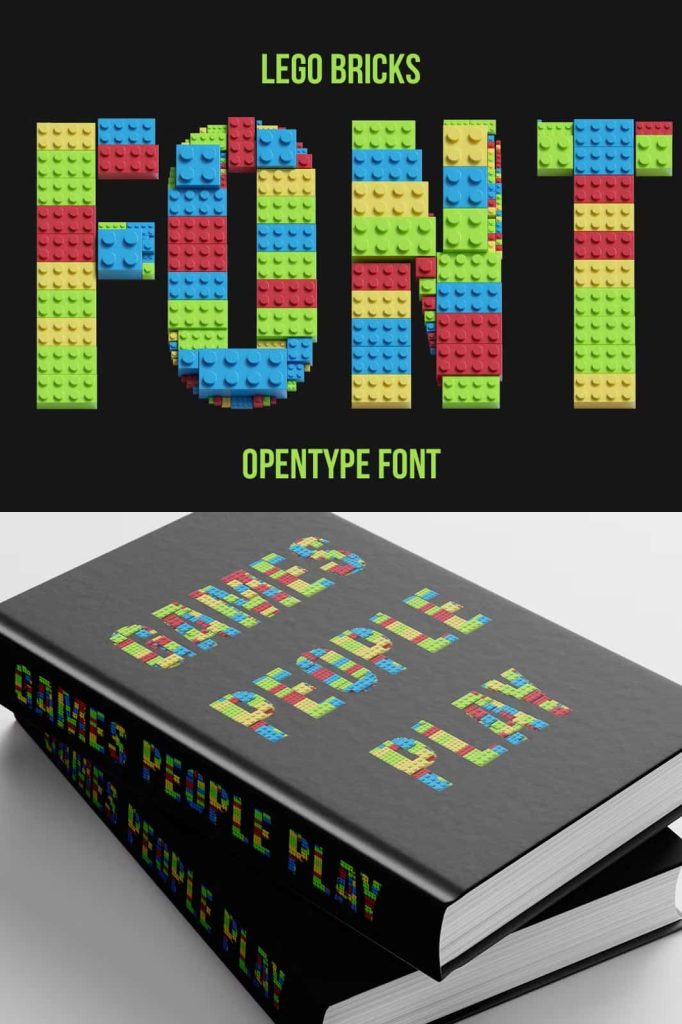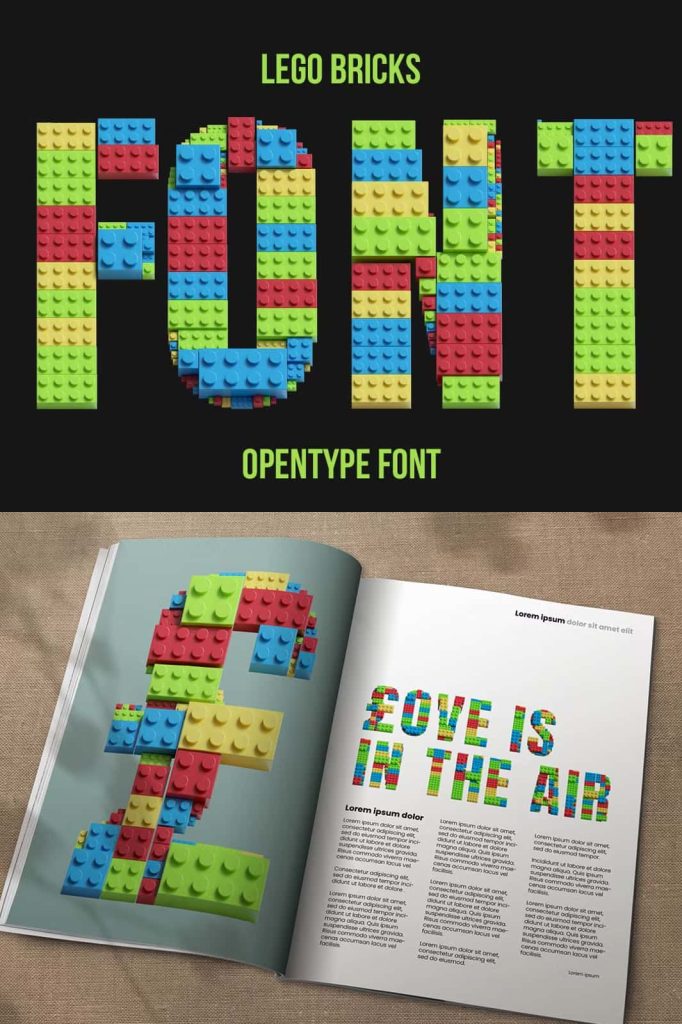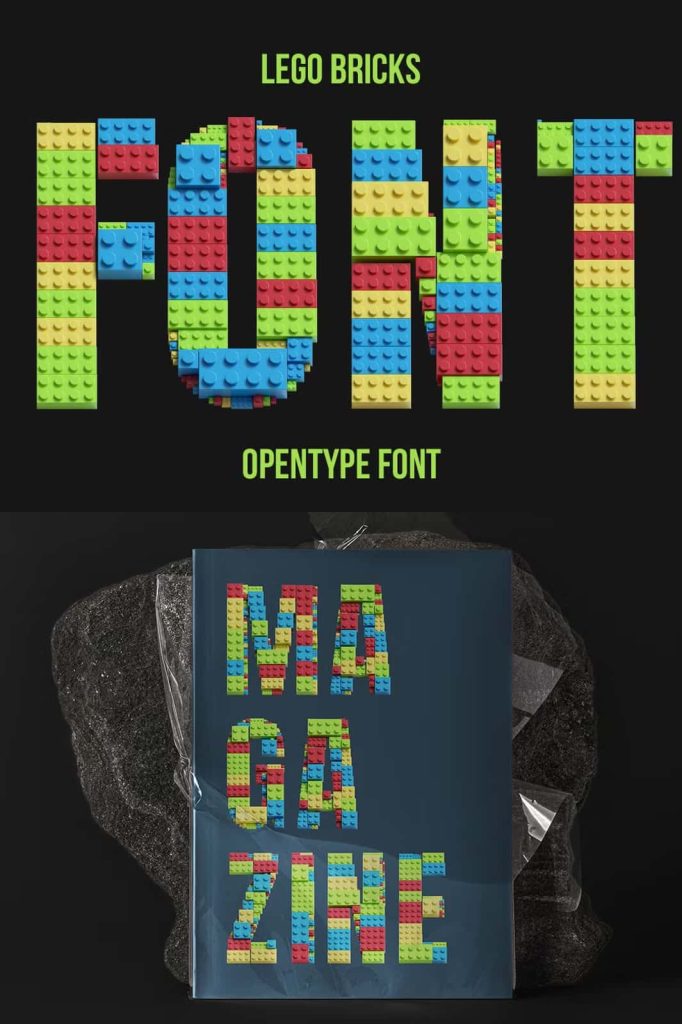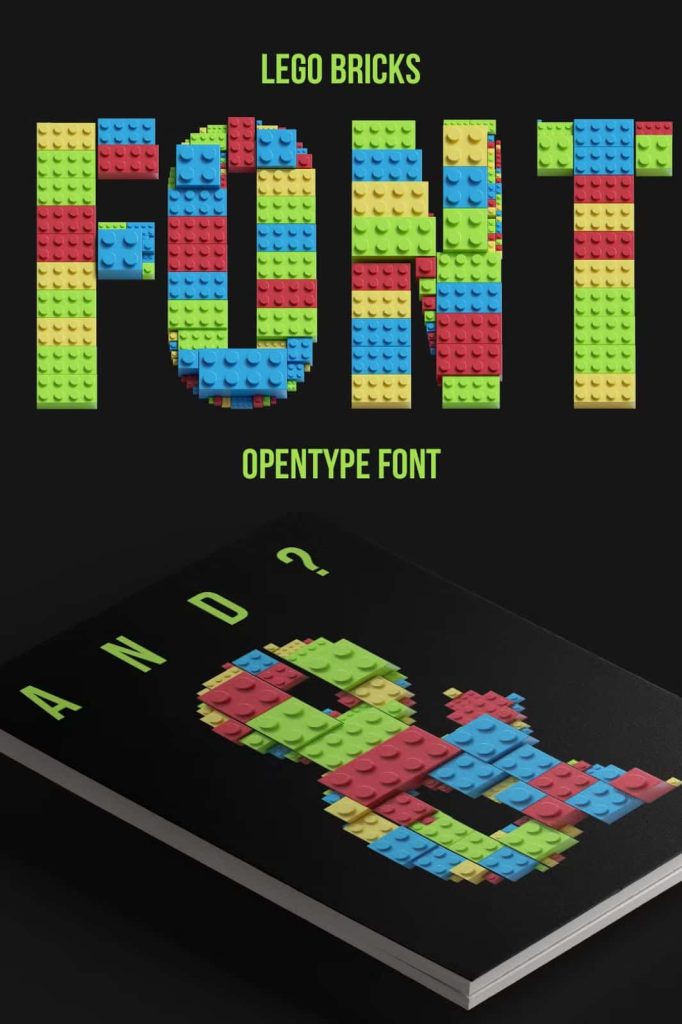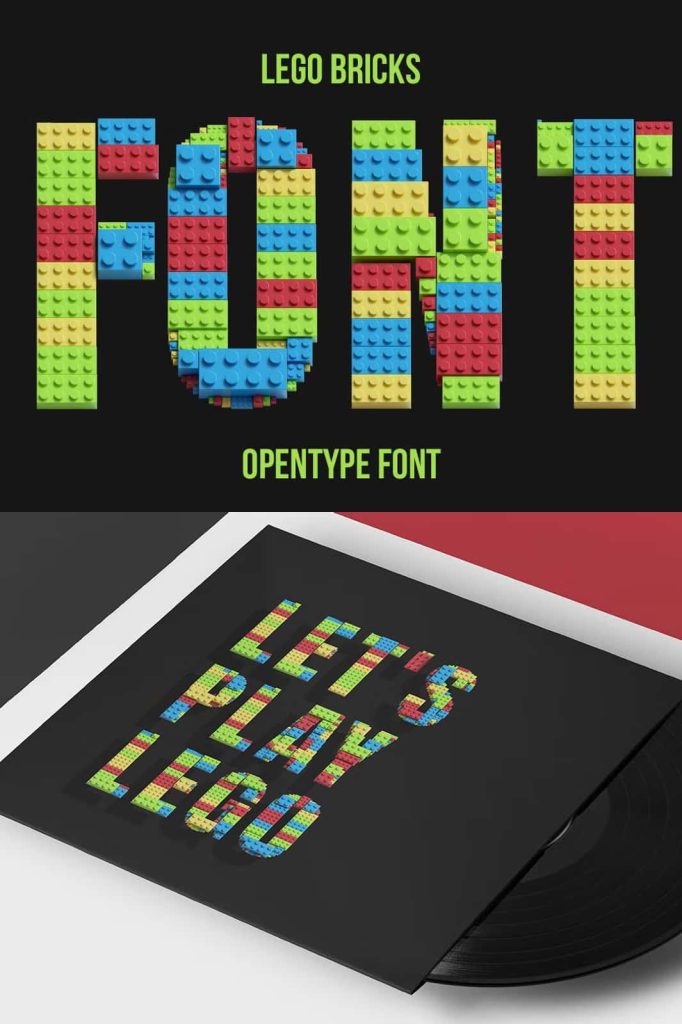
Lego Bricks SVG Font – High-Definition OpenType-SVG Typeface for Creative and Playful Design
Lego Bricks SVG Font is an exciting and high-definition OpenType-SVG typeface designed to bring strong visual impact and vibrant creative energy into any project. Built with realistic brick textures and dynamic 3D-style structure, this font replicates the iconic look and feel of physical building blocks. Every character is crafted with exceptional detail, making this font a powerful tool for designers who want to create bold, playful, and visually striking typography. Perfectly suited for digital and print applications, Lego Bricks SVG Font unlocks endless opportunities for imaginative design concepts.
This unique SVG font contains uppercase characters, numerals, and basic punctuation, all designed with precision and high-resolution detail. The approximate drawing height of each character is around 800 pixels, offering strong clarity and crisp rendering even at large display sizes. All available letters and glyphs featured in this font can be viewed in the preview, showcasing its expressive and versatile character set.
High-Definition OpenType-SVG Technology for Stunning Visual Quality
Lego Bricks SVG Font is built using advanced OpenType-SVG technology, creating a typography experience far beyond standard vector fonts. Each character contains rich color, texture, and shading that closely mimics real building bricks. This technology allows the font to maintain incredible detail without requiring manual graphic editing or additional effects.
With realistic dimension and visually engaging depth, this typeface transforms simple text into powerful design elements. It performs exceptionally well in high-resolution layouts, display headlines, signage, and promotional materials that demand visual excitement and creativity.
Complete Set of Characters for Flexible Creative Use
Lego Bricks SVG Font includes a full set of uppercase letters, numerals, and basic punctuation to cover essential typographic needs in both digital and printed formats. These elements make it perfect for building playful messages, educational designs, branding visuals, and thematic artwork for entertainment and events.
The structured block style encourages experimental layouts and layered composition, giving designers the freedom to explore new concepts that stand out instantly. Whether crafting titles or creating decorative lettering, each character brings strong personality and memorable identity to the final result.
Perfect for Posters, Branding, Crafts, Education, Games, and Digital Artwork
Lego Bricks SVG Font offers impressive versatility, making it a valuable resource across multiple design industries and creative fields. Its fun, bold, and playful feel makes it an ideal choice for:
- Children’s branding and educational materials
- Craft projects, hobby designs, and DIY artwork
- Poster design and event promotional graphics
- YouTube thumbnails and social media content
- Video game titles, animations, and entertainment media
- Toy packaging and merchandise branding
- Party invitations, birthday themes, and celebration signage
- Classroom design, teaching tools, and learning activities
- 3D-inspired logo design and business promotions
- Digital scrapbooking and online creative projects
Its strong block-style construction instantly creates engaging visual narratives that capture attention across all age groups. Lego Bricks SVG Font communicates creativity, learning, imagination, and fun, making it an excellent typographic choice for designers working on playful or family-friendly concepts.
Elevate Creative Work with Realistic Brick Texture Typography
Unlike traditional vector fonts, Lego Bricks SVG Font provides rich color depth and authentic structural texture built into each character. Designers do not need to apply additional shadows, patterns, or 3D effects because the font inherently includes realistic brick styling. This professional approach saves time while improving design quality and visual appeal.
Its bold, dimensional appearance makes it suitable for prominent display use, including large-format printing where detail matters. Even when scaled significantly, the high-definition SVG format maintains clarity and sharpness, delivering clean, professional results.
Build Imaginative Designs with Lego Bricks SVG Font
Lego Bricks SVG Font empowers creativity and opens the door to playful, expressive design exploration. Whether creating branding for children’s products, promotional graphics for family events, or eye-catching digital artwork, this font brings life and imagination to every project. It is more than a typeface; it is a building tool for visual storytelling.